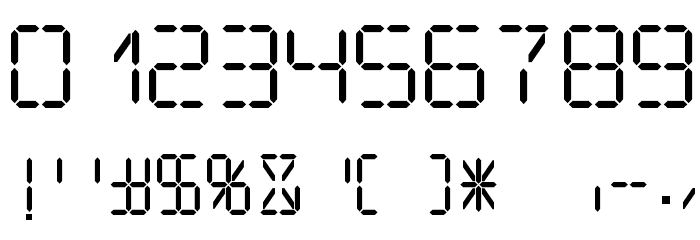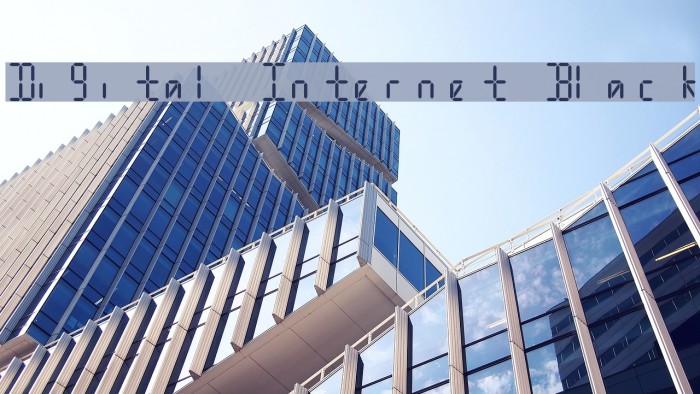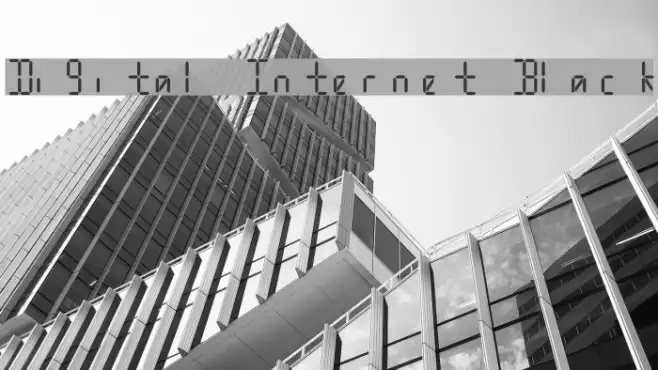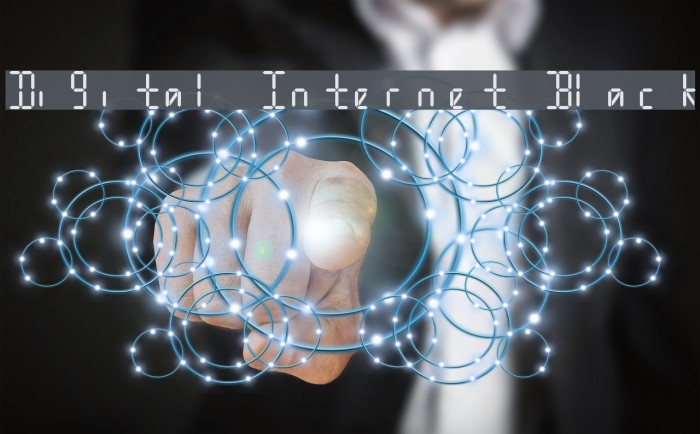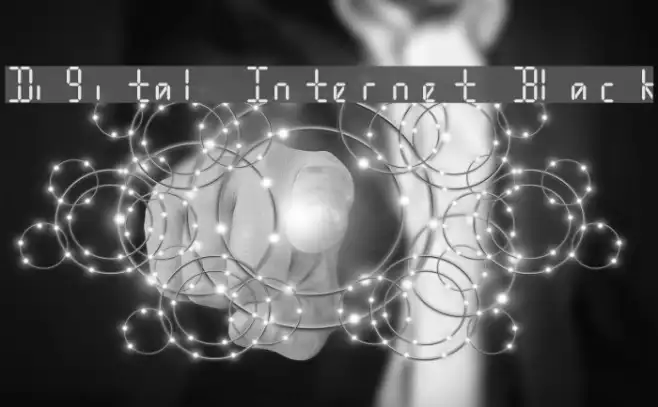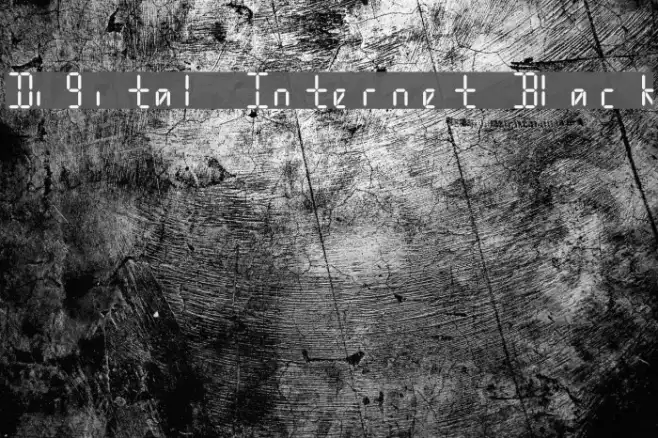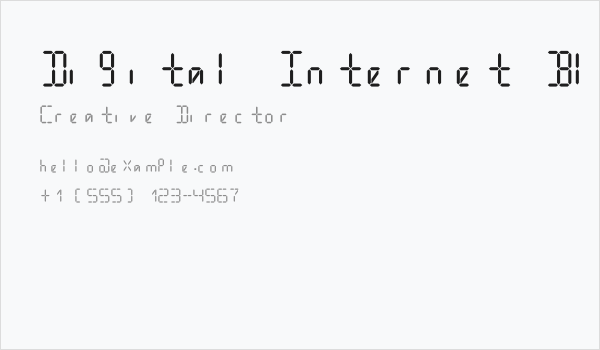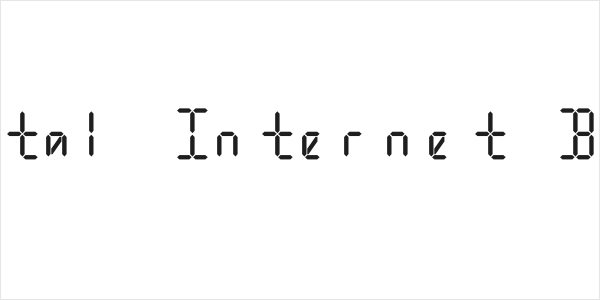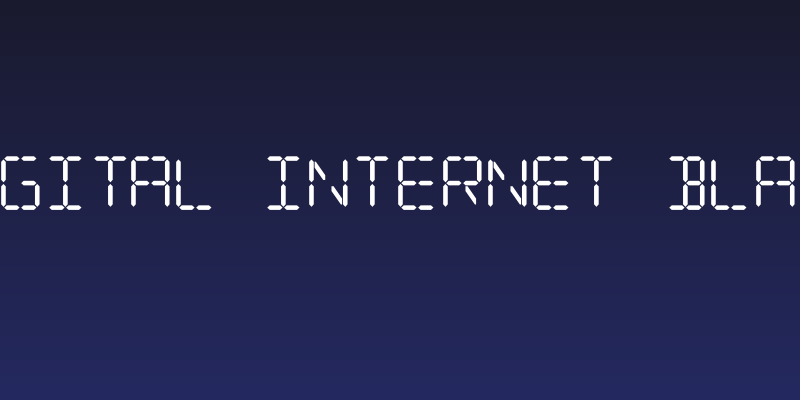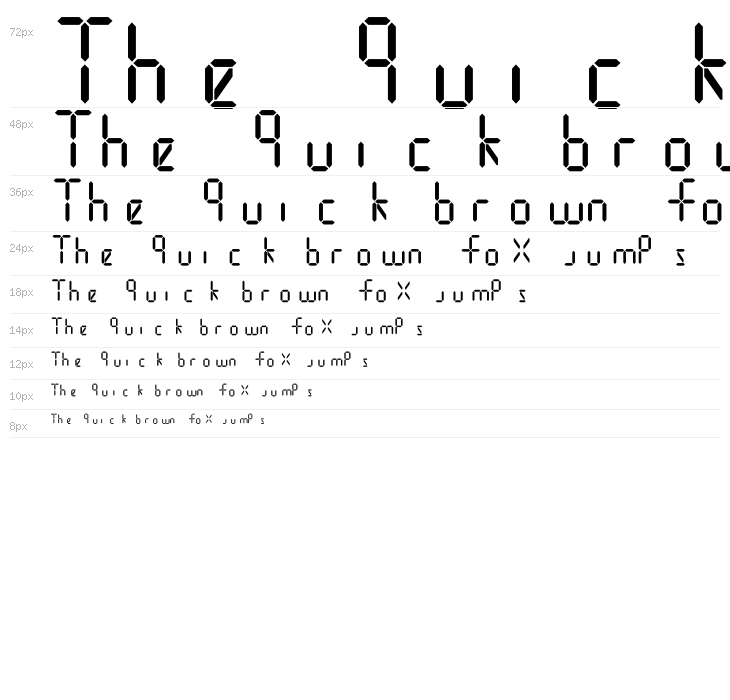
Digital Internet Black Font
Digital Internet Black Description
This font features a digital, segmented style reminiscent of classic LED displays. Each character is constructed from a series of rectangular segments, creating a geometric and technical appearance. The uppercase and lowercase letters maintain a consistent height, with a uniform width that enhances readability. Numbers and special characters follow the same segmented design, ensuring a cohesive look across all elements. The font's design is minimalistic yet striking, making it ideal for digital-themed projects or any context where a modern, tech-savvy aesthetic is desired.
| Use Case | Headlines, Logos, Digital displays |
| Proposed Projects | Ideal for digital interfaces, tech branding, futuristic designs, and electronic-themed projects. |